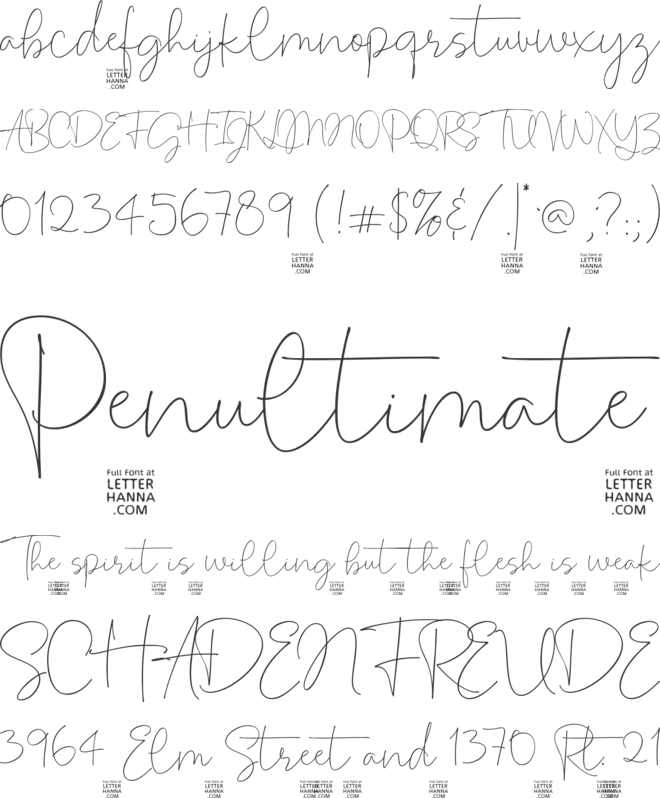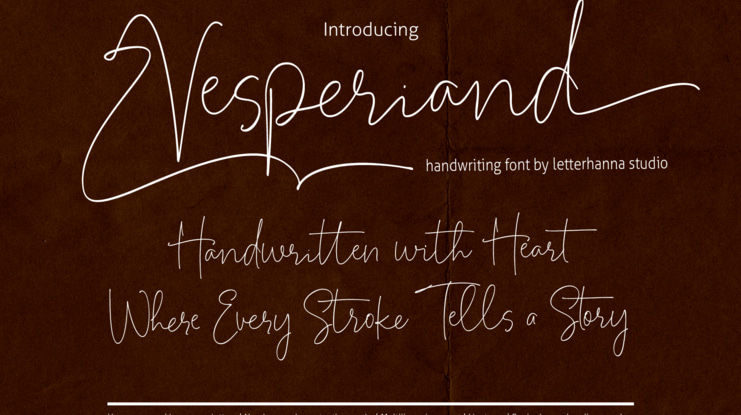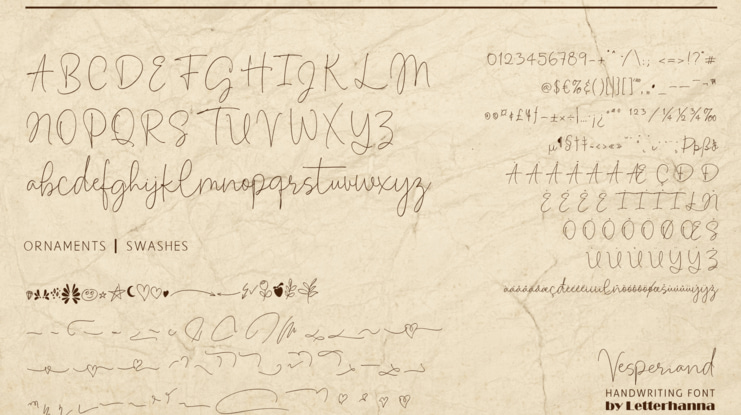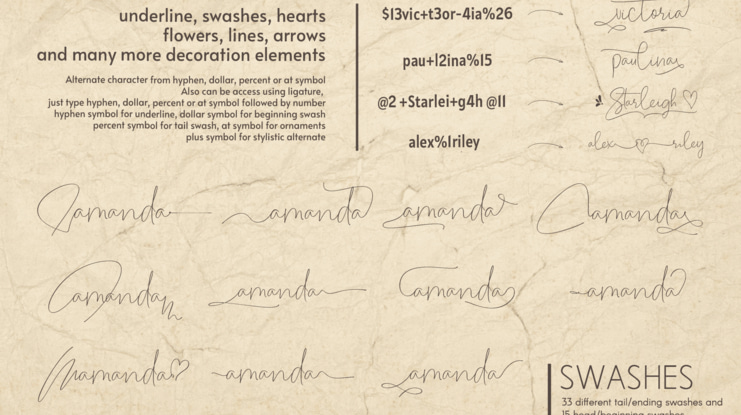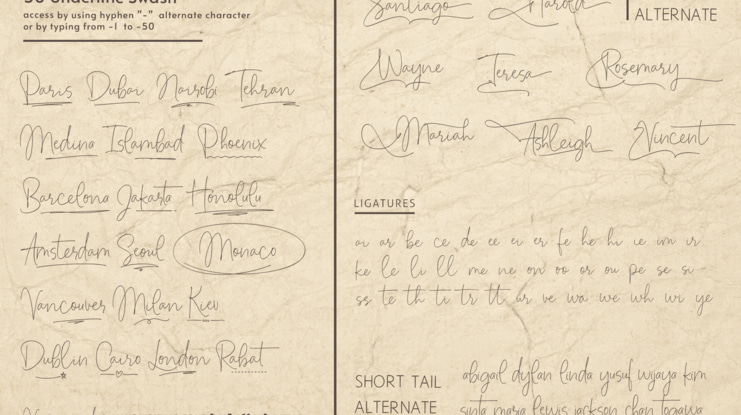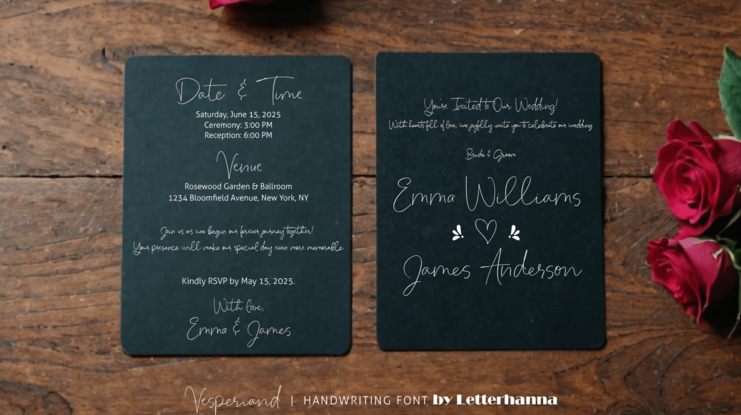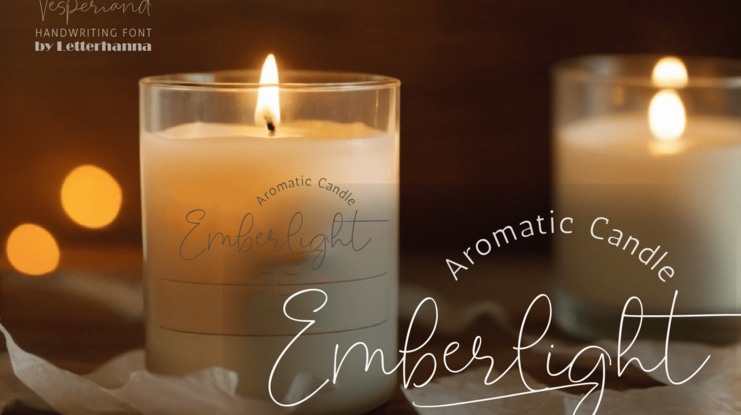
Vesperiand Free Font
Introducing Vesperiand, a handwriting script font crafted for those who seek elegance with a personal touch. Designed with a rich collection of stylistic alternates, graceful swashes, and fluid ligatures, Vesperiand brings a natural yet sophisticated feel to your typography. Whether you’re working on branding, invitations, or creative projects, this font effortlessly adapts, adding charm and uniqueness to every word.
With Vesperiand, every letter flows seamlessly, creating a handcrafted aesthetic that feels both organic and refined. Its versatile design lets you mix and match swashes and alternates, giving you endless possibilities to personalize your text. Elevate your designs with the expressive beauty of Vesperiand—where artistry meets authenticity.